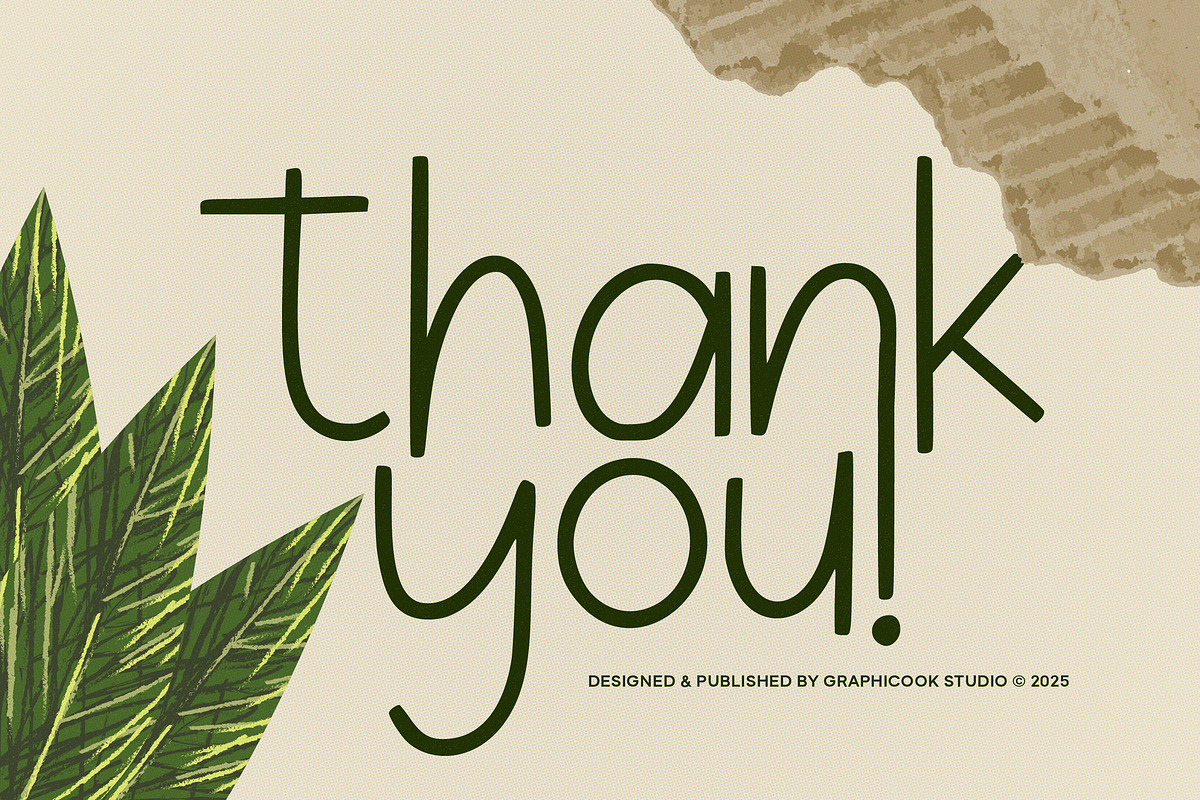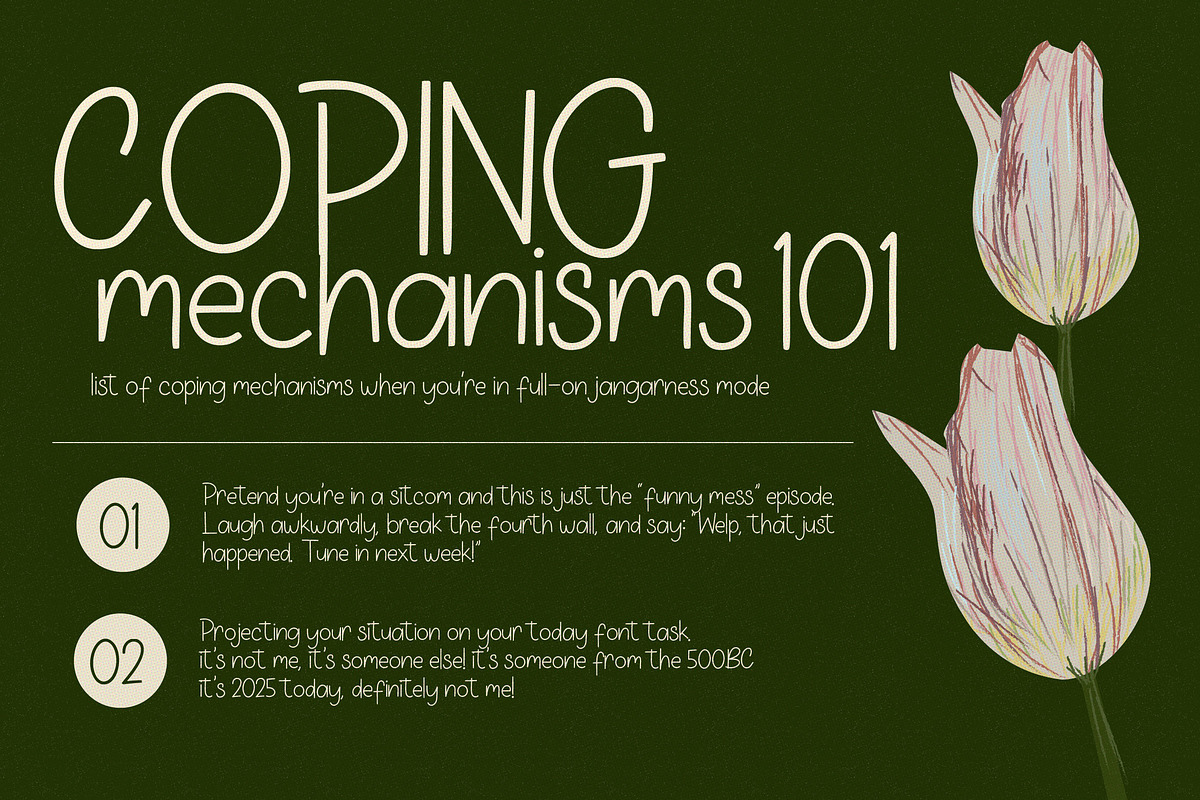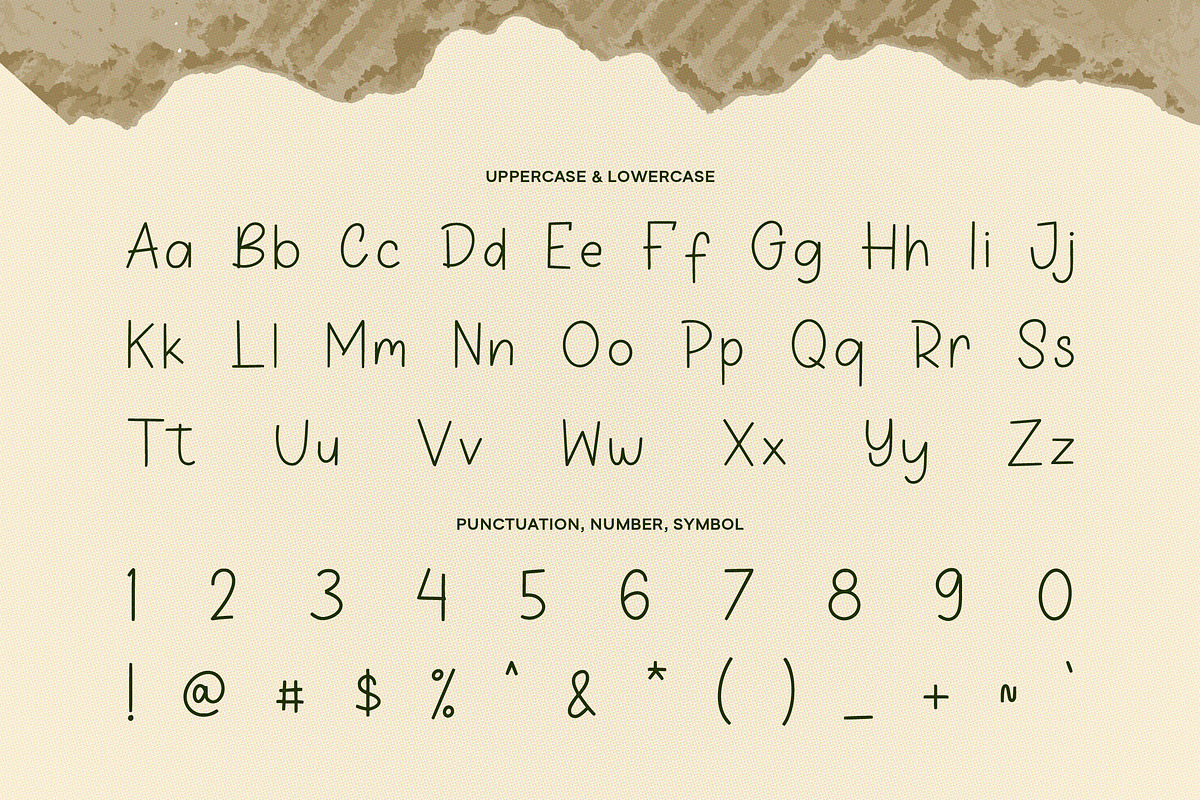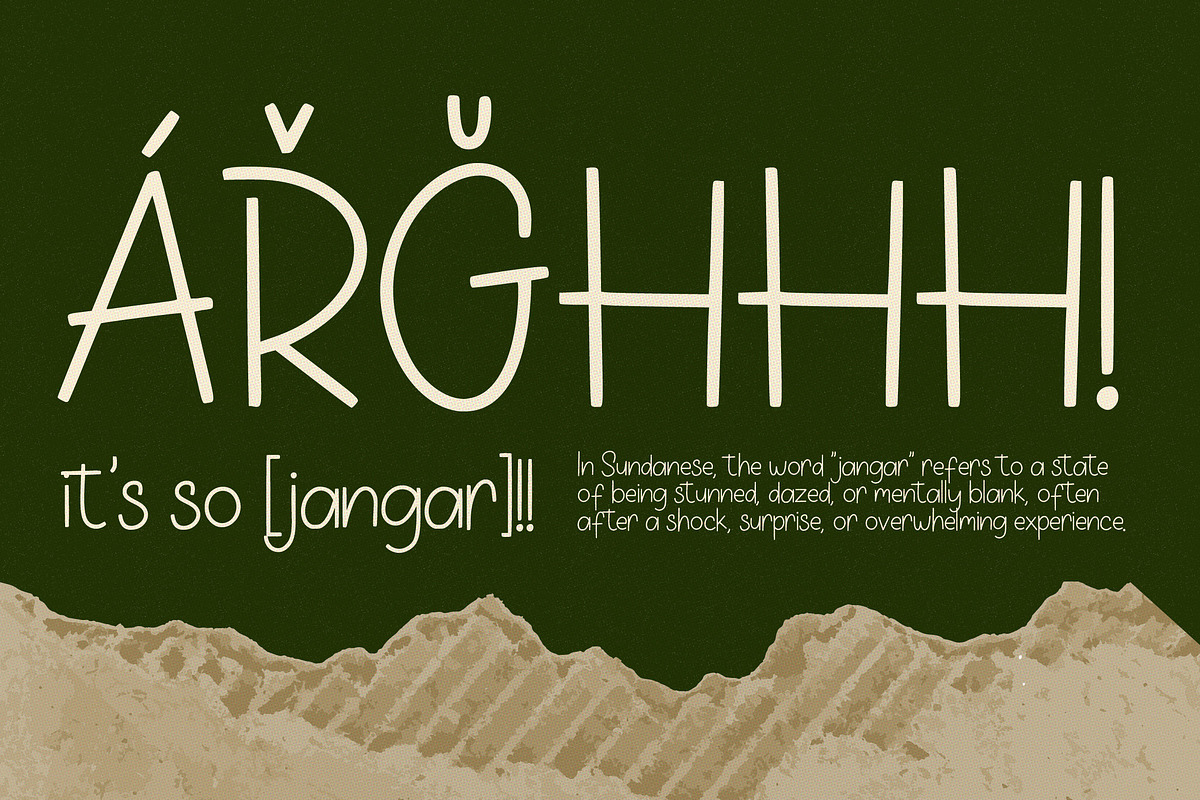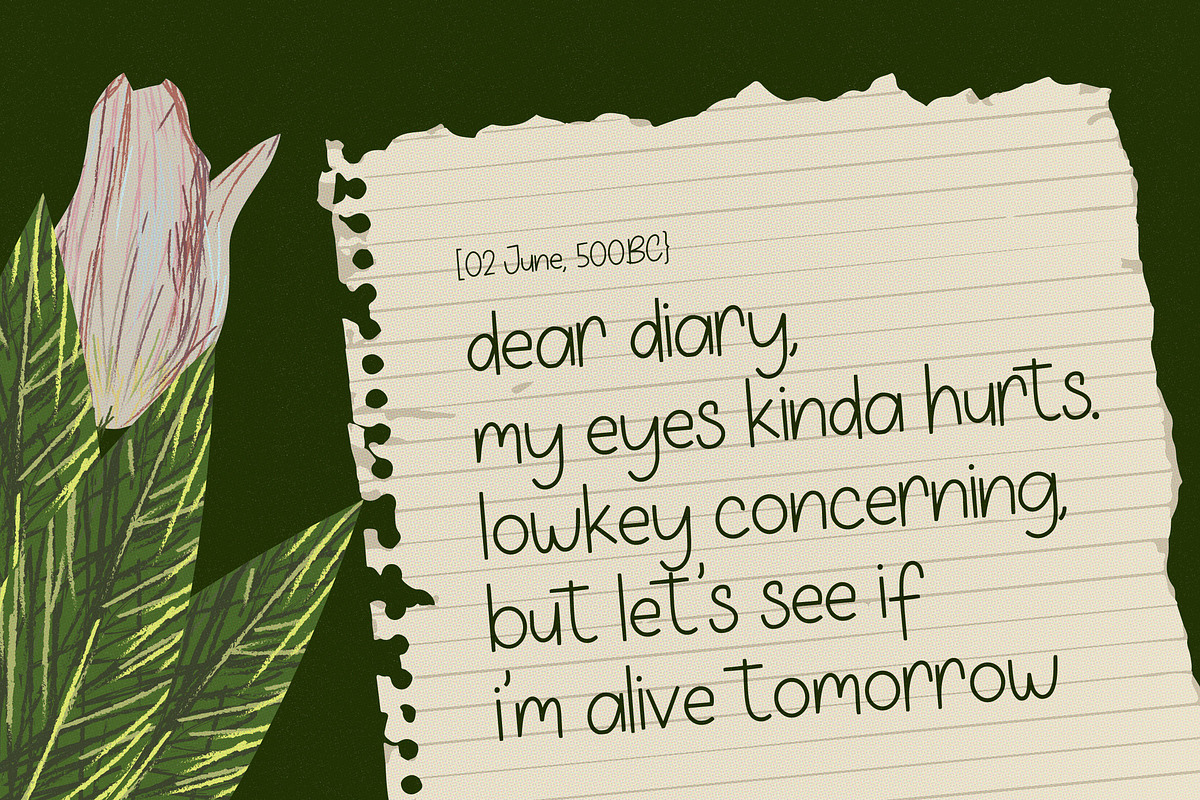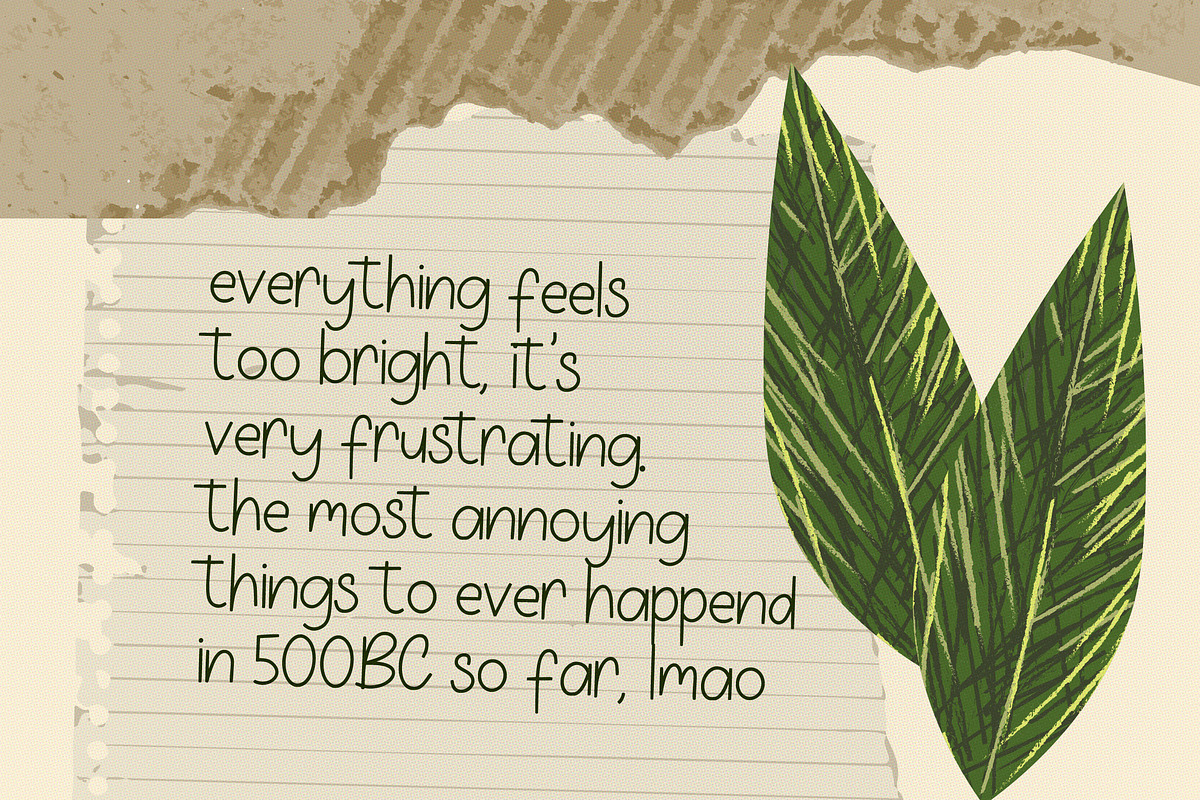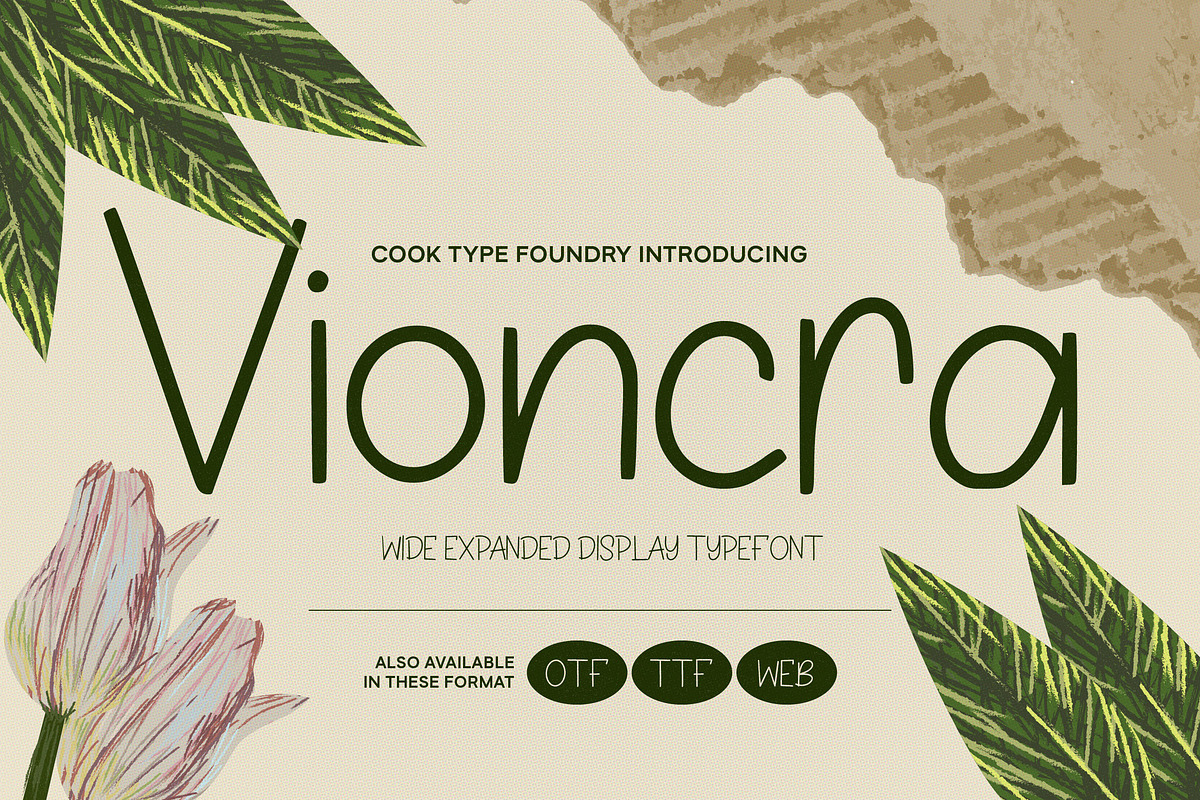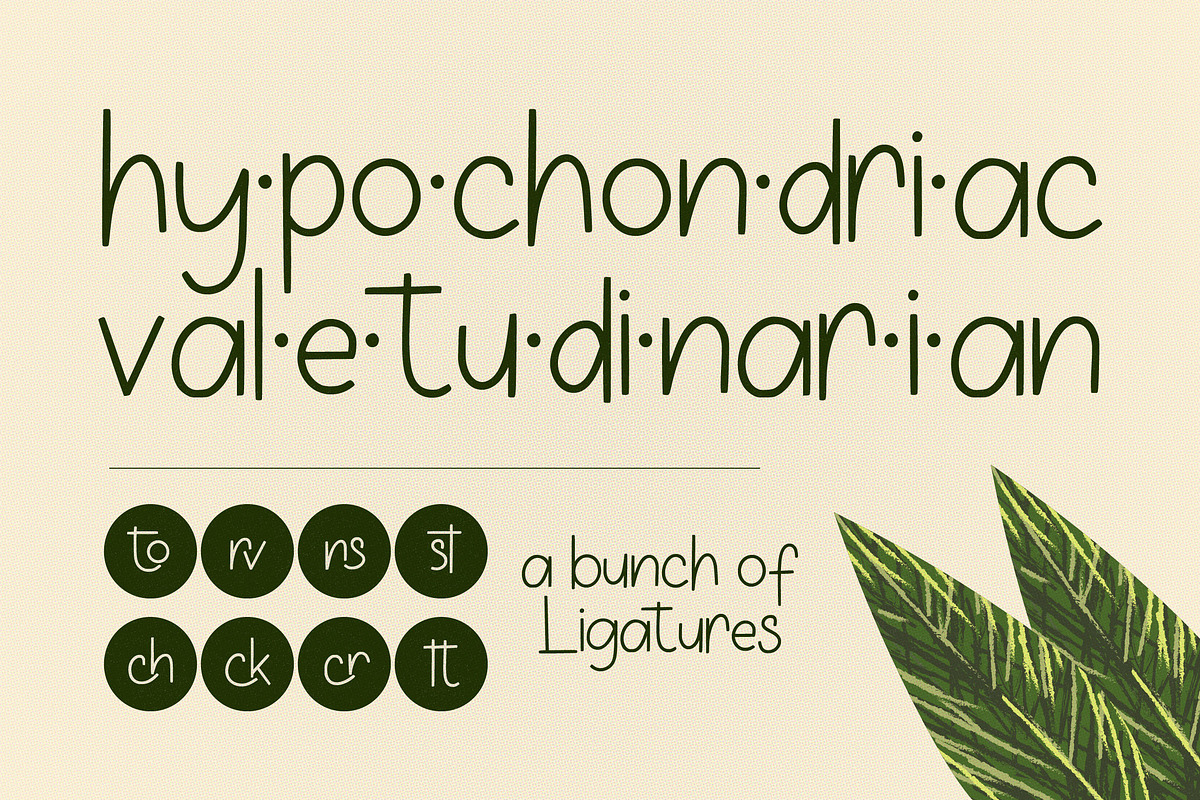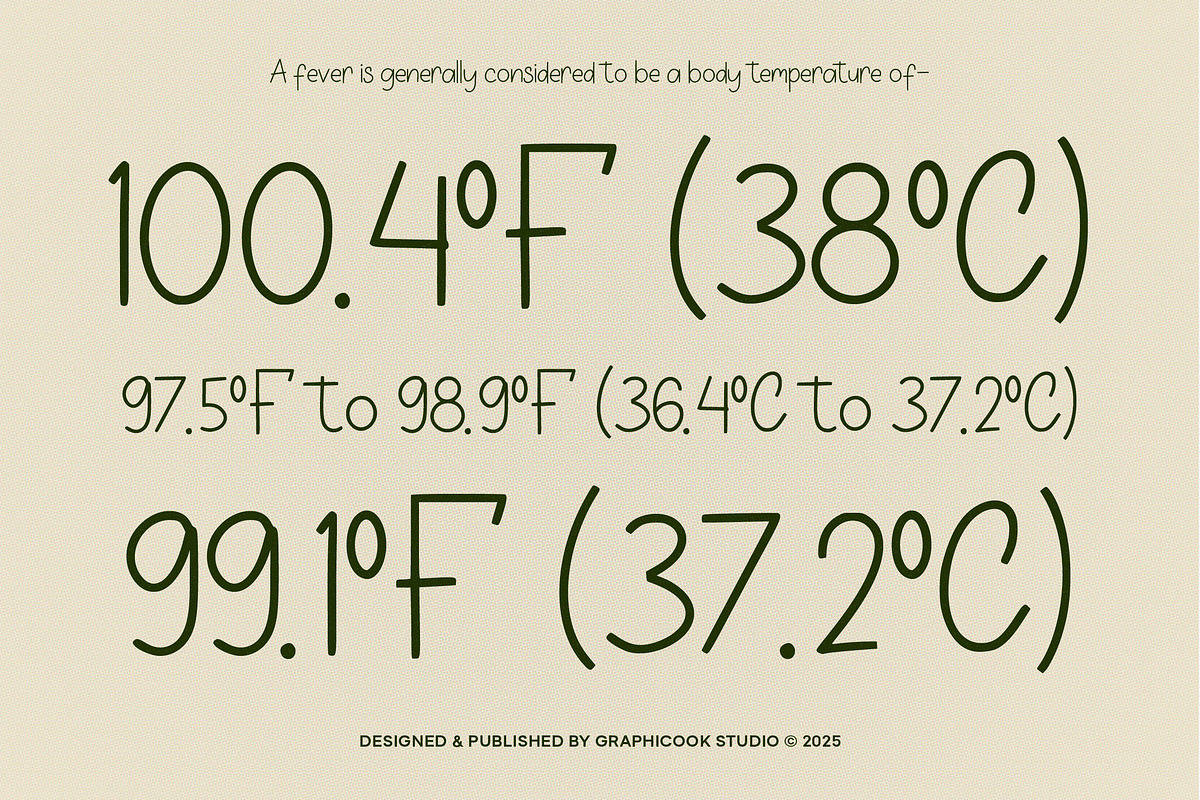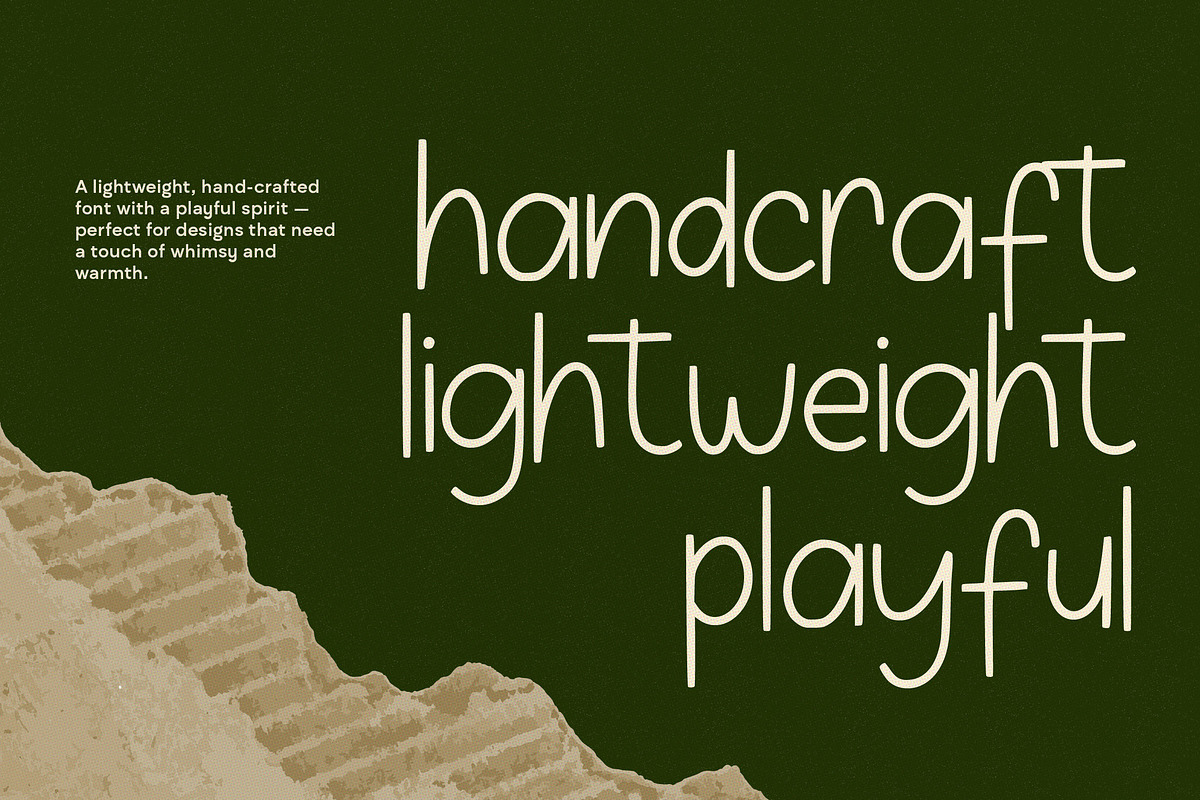
Vioncra
Vioncra is a sans-serif font with a handwritten style that creates an organic and playful feel. Perfect for designs that aim to appear friendly, casual, and approachable.
It is perfect for headlines, logotypes, magazines, packaging, quotes, movies, games, cover albums, book covers, and flyers, it's a perfect solution for creating eye-catching designs that stand out in any context.
by Graphicook